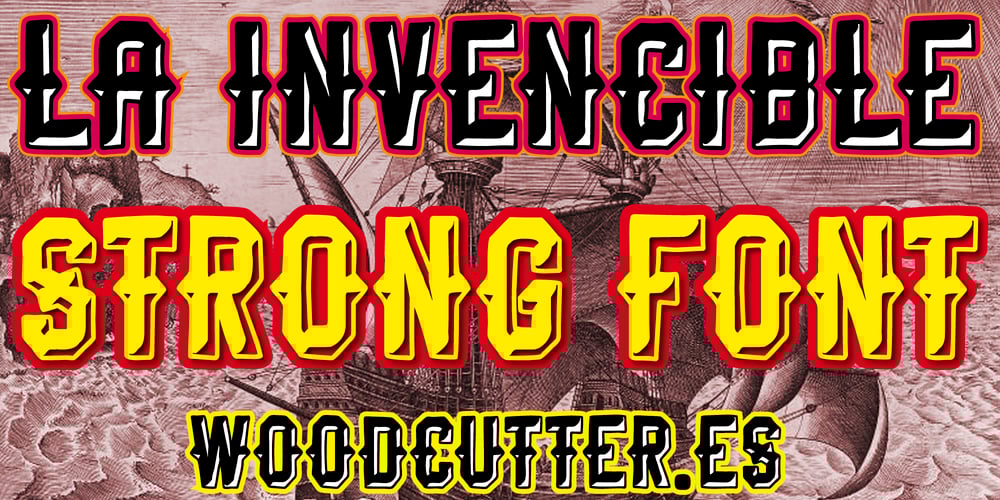
La Invencible Font Family was designed by Jordi Manero and published by Woodcutter. La Invencible contains 1 styles and family package options. “La Invencible” is an uppercase typeface with a decorative style featuring hard shadows and a metallic appearance. Each letter is designed with details that emulate the solidity and resilience of forged metal, conveying a sense of strength and unyielding power. The deep shadows add depth and dimension to the letters, enhancing their robust presence. It is an ideal font for titles and projects that seek to emphasize vigor and authority, perfect for designs that require a bold and striking touch.